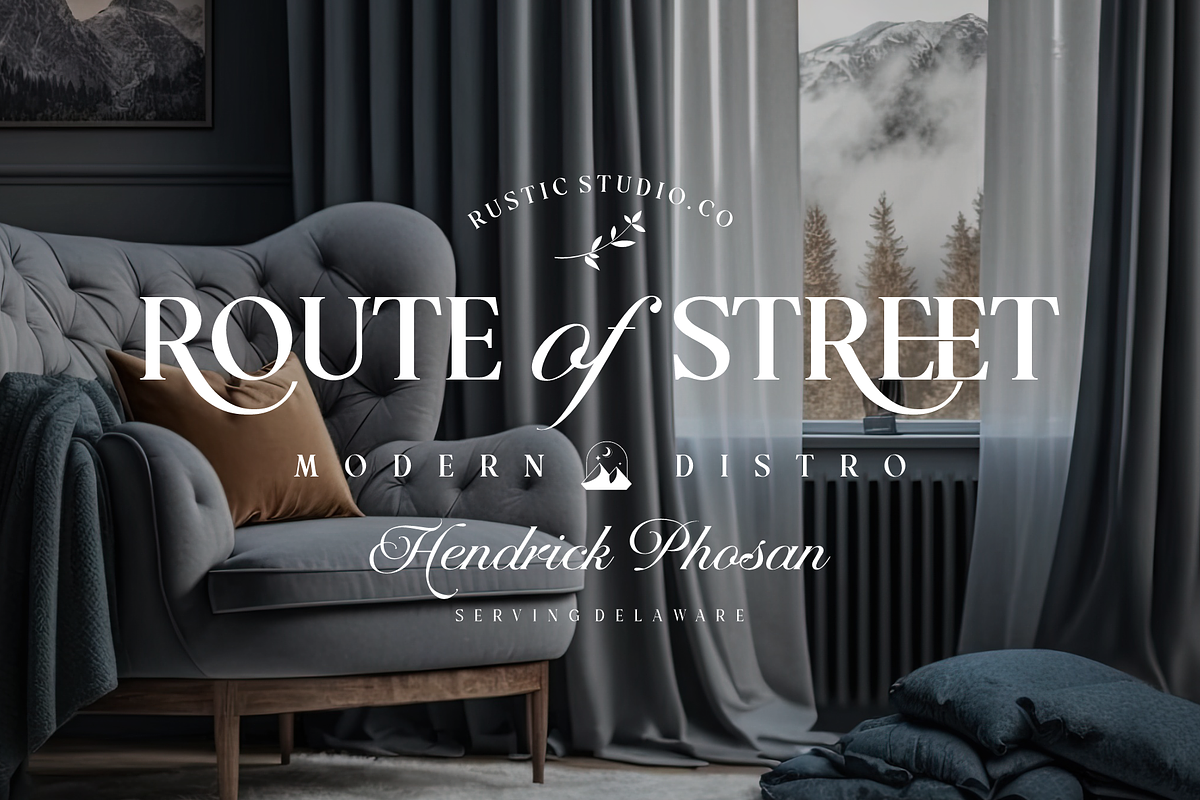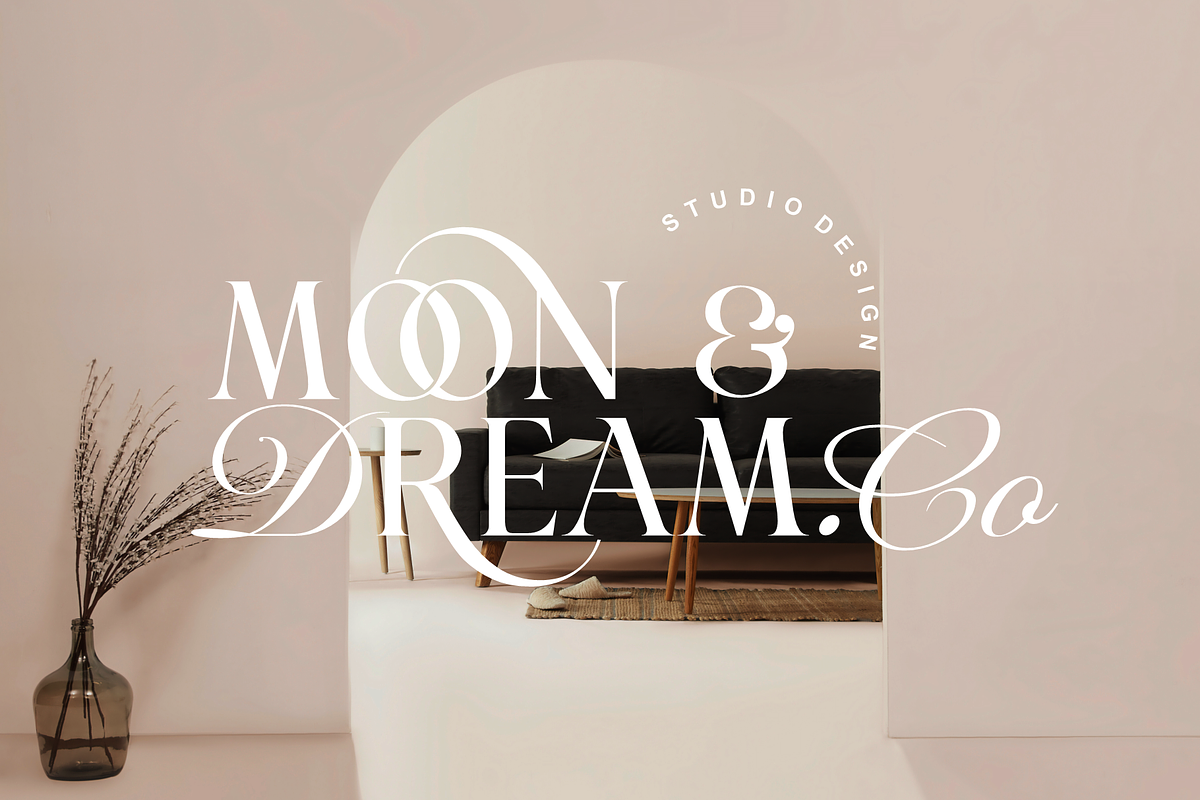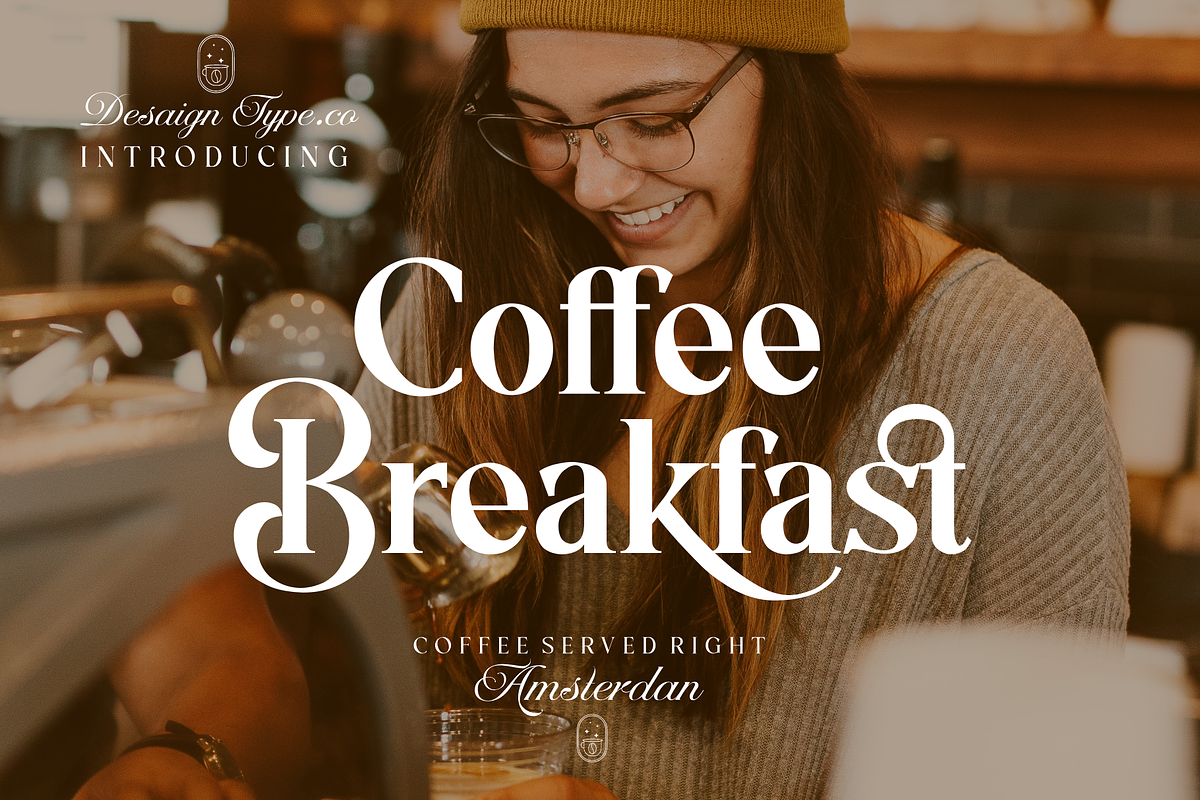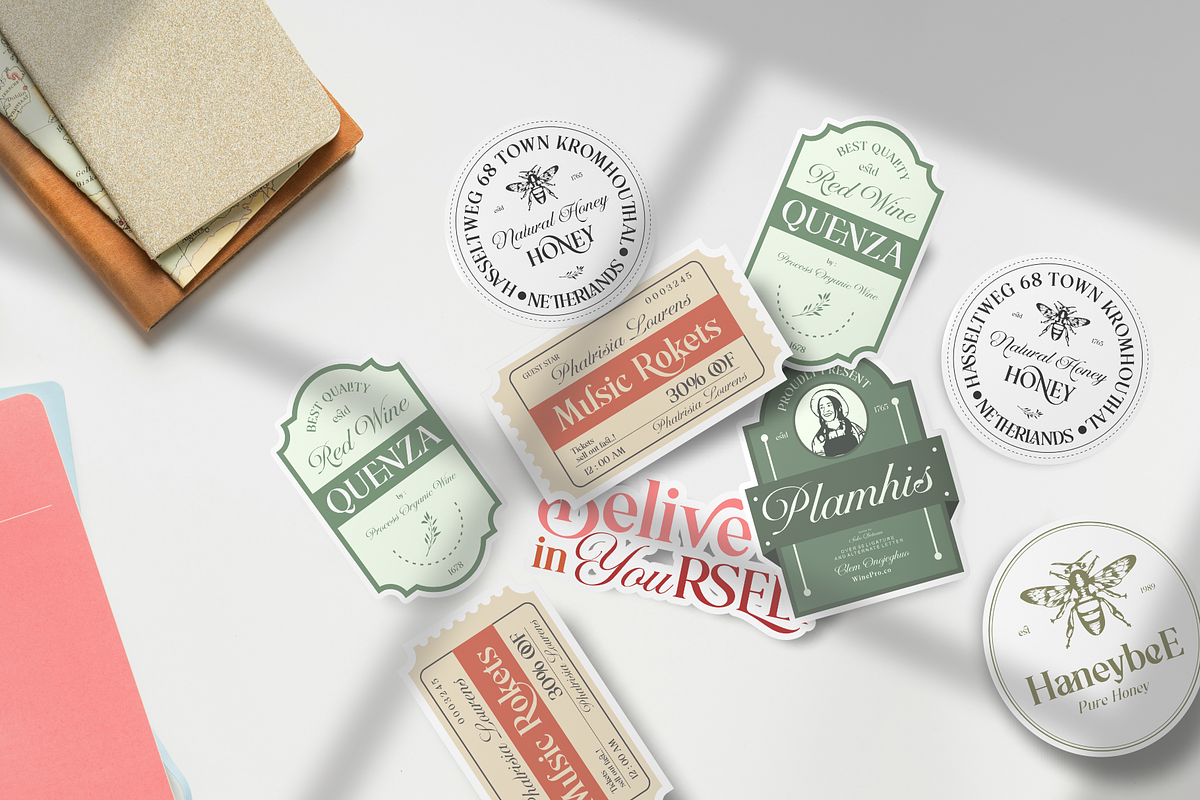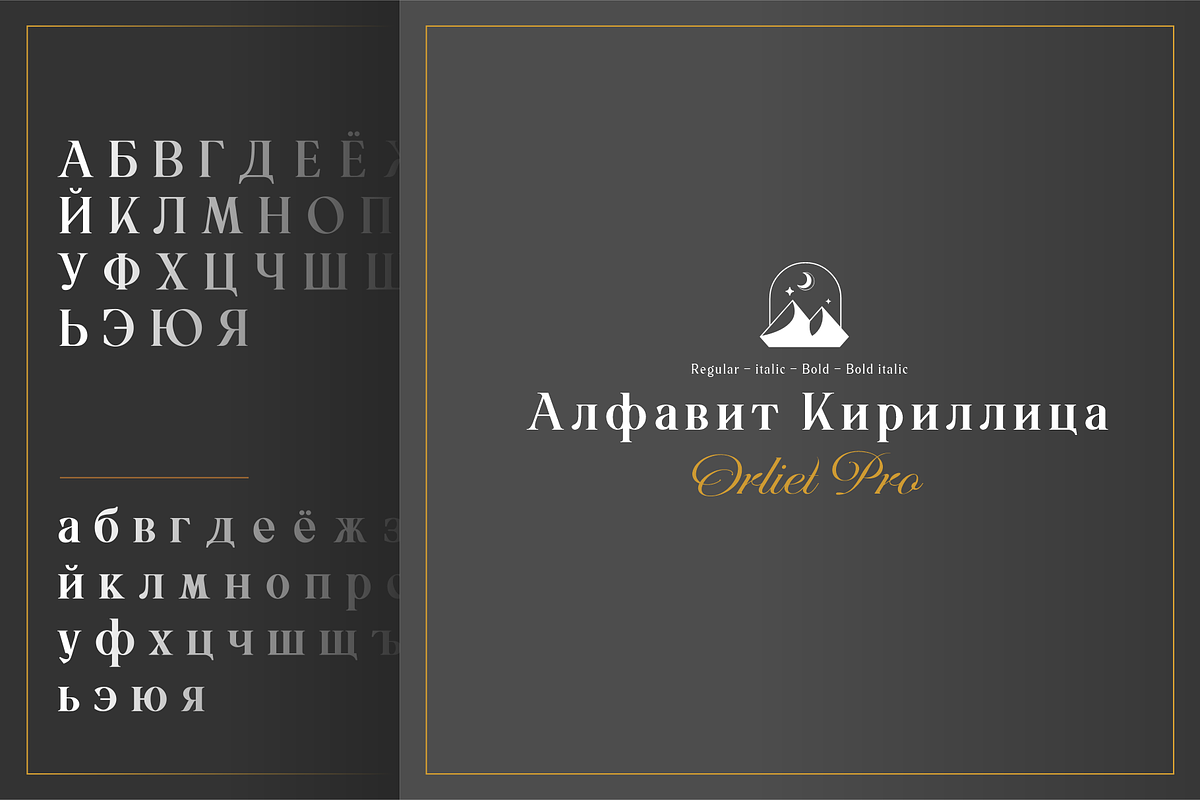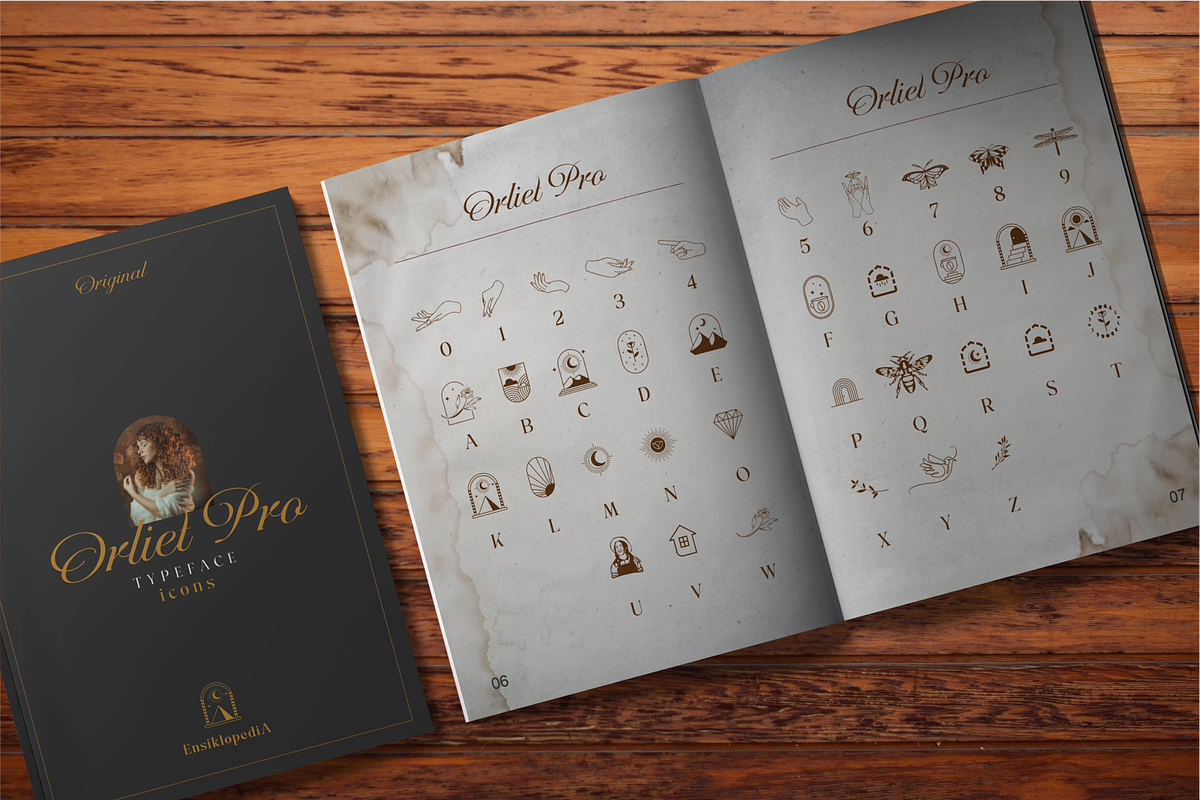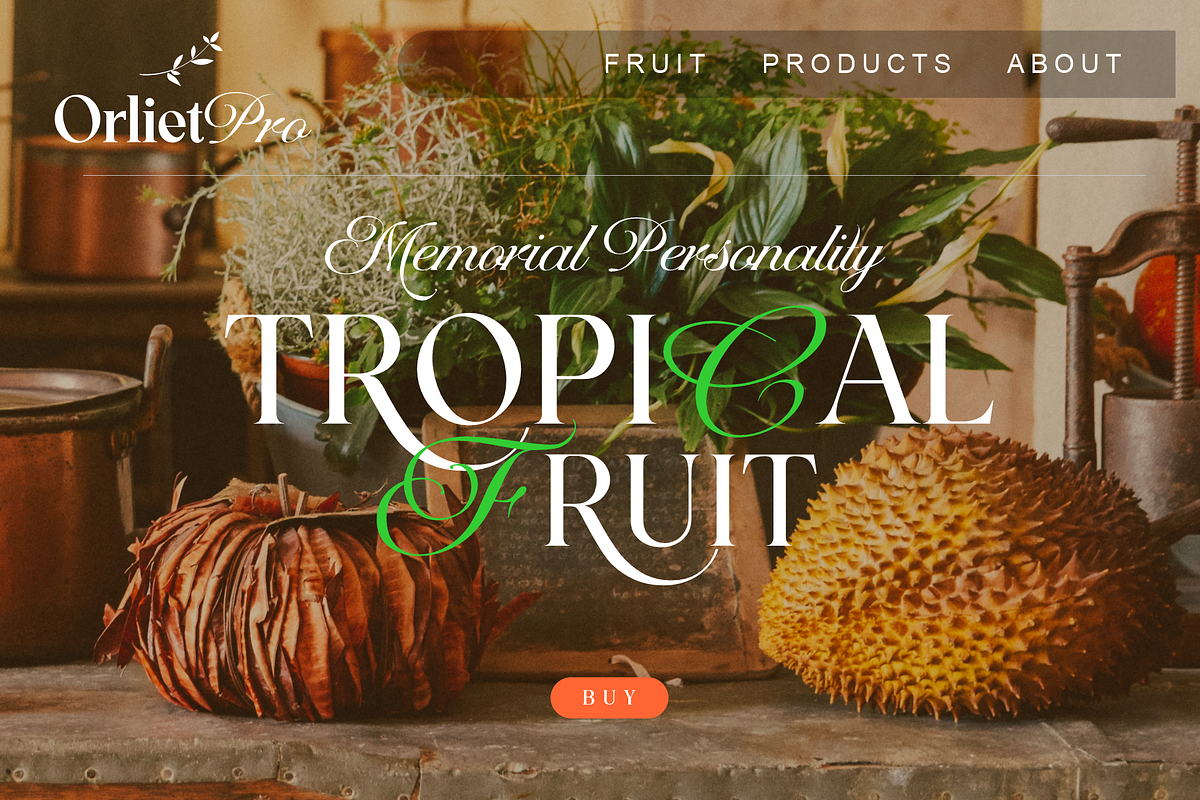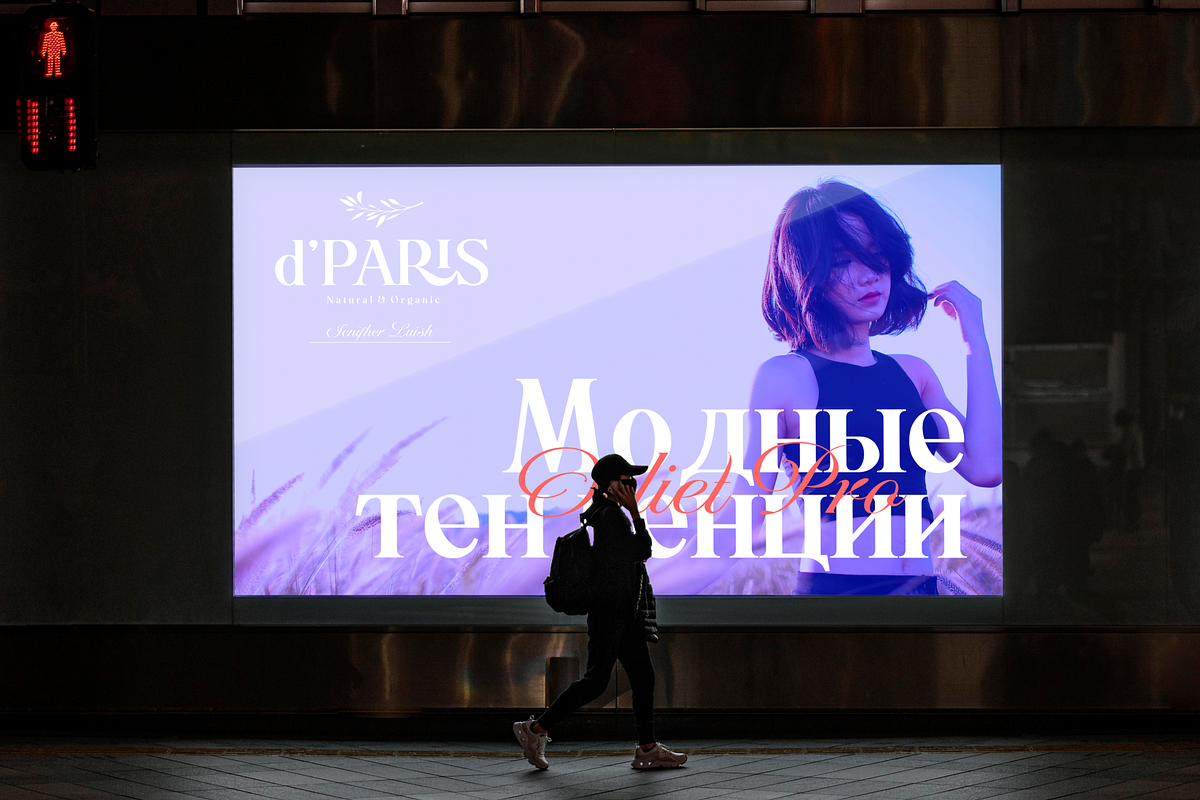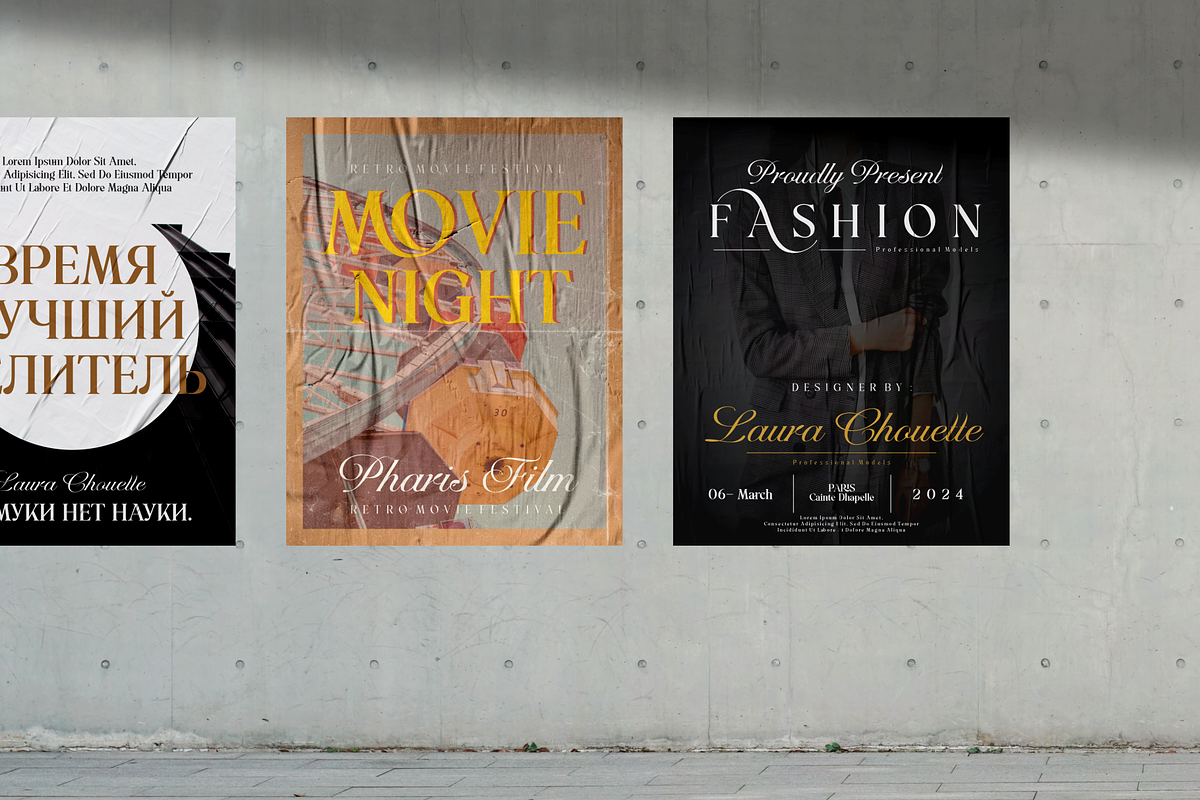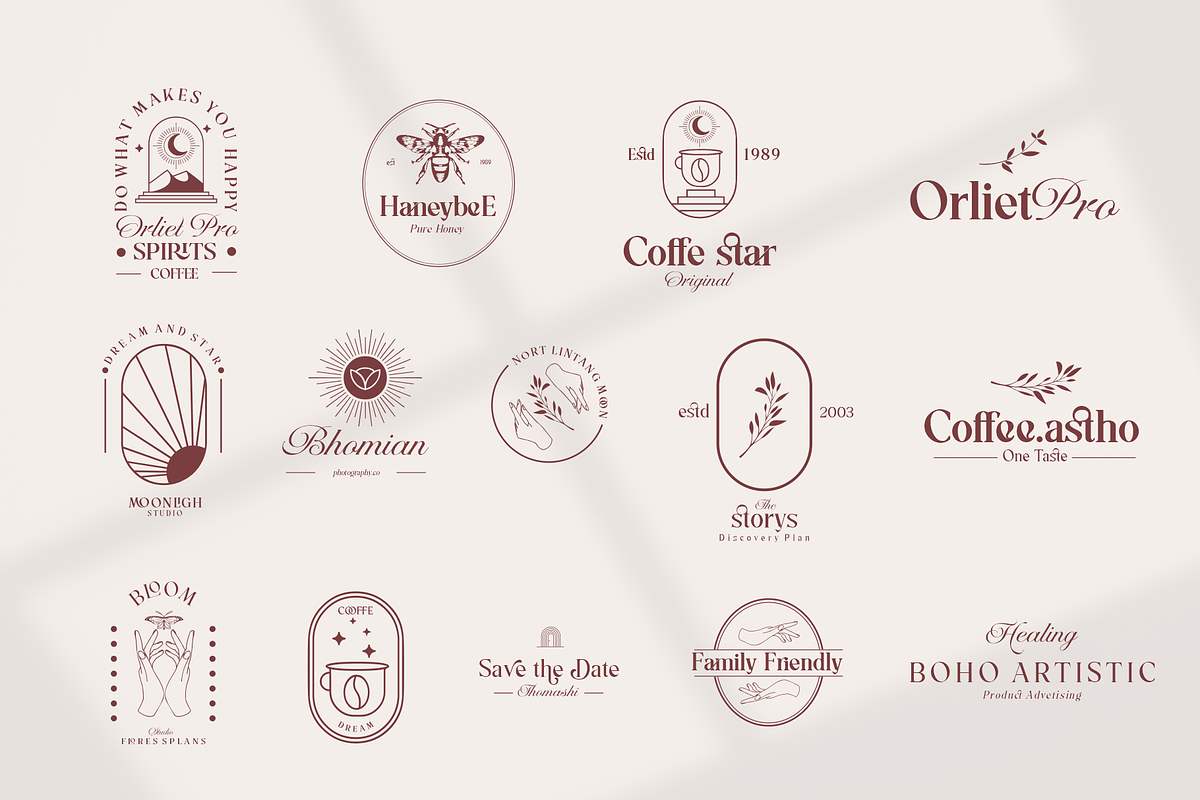
Orliet Pro - Serif, Icons + Script
Elevate Your Designs with Elegant Luxury
Orliet Pro is a meticulously crafted serif font designed to add a touch of elegance and luxury to your visual creations, especially ideal for enhancing the sophistication of logos. This font stands out for its uniqueness, boasting over 50 ligatures and alternative characters with artistic flair. Its well-designed script optimizes your designs, ensuring a seamless integration into your projects.
Versatile Ligatures and Alternatives: With over 50 ligatures and alternative characters, Orliet Pro provides a wide range of design possibilities. Each character exudes a unique artistic charm, allowing you to customize your text in a myriad of ways.
Elegance in Every Detail: The design of Orliet Pro aims for elegance. The serif style adds a touch of class to your projects, making it perfect for creating logos that exude luxury and simplicity simultaneously.
Seamless Font Families: Each member of the Orliet Pro font family complements one another effortlessly. Whether you choose the Orliet Pro script or Orliet Pro icons, they work harmoniously to enhance your overall design.
Enhanced Design Flexibility: Orliet Pro script and Orliet Pro icons contribute to the ease of design integration. The script is thoughtfully designed to optimize your creative process, while the icons provide additional elements for a professional touch.
Cyrillic Alphabet Inclusion: For an added layer of versatility, Orliet Pro includes the Cyrillic alphabet in regular, italic, bold, and bold italic styles. This ensures that your designs can reach a broader audience with diverse language preferences.
Design Concept: Orliet Pro was conceptualized to bring an air of sophistication to your designs, with a focus on creating an elegant and timeless serif font.
Creation Inspiration: The font draws inspiration from classic design elements, aiming to provide a timeless aesthetic that resonates with a modern audience.
Historical Context: While not a revival, Orliet Pro pays homage to the timeless elegance of serif fonts, adding a contemporary twist to meet the demands of today's design trends.
Elevate your designs with the timeless elegance of Orliet Pro. Explore the possibilities of serif and script styles, accompanied by convenient font icons, all seamlessly integrated into one versatile font family. Embrace luxury and simplicity in every character.